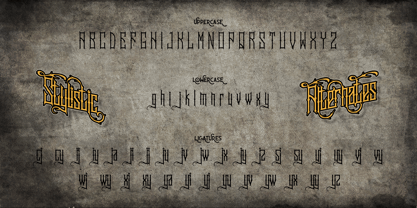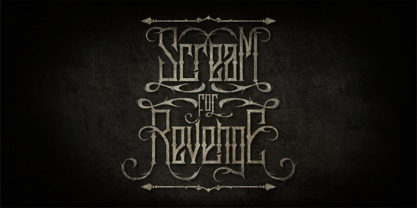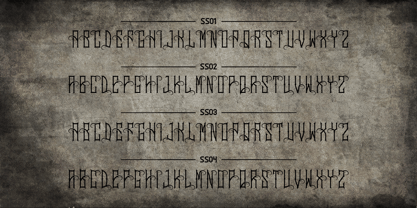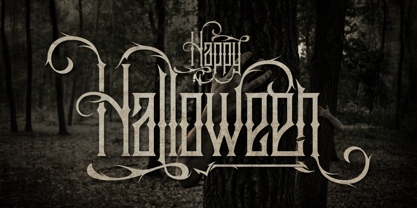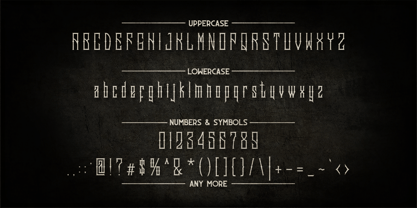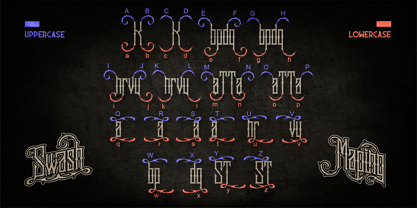
Sadis
by HengzArt Studio
The Sadis Font Family was designed by Nuryana Fajartama and published by HengzArt Studio. Sadis contains 1 styles. More about this family
Elevate your next design project with Sadis, a remarkable blackletter font. This distinct typeface stands out with its edgy and sharply-etched features, offering a twist from the commonplace. Let the charm of Sadis stimulate your creativity and inspire your vision!
Features:
– Character Set A-Z (Uppercase & Lowercase)
– Numerals & Punctuations
– Accents (Multilingual characters)
– Stylistic Alternate
– Standard Ligature
– Swash
– ss01, ss02, ss03, ss04